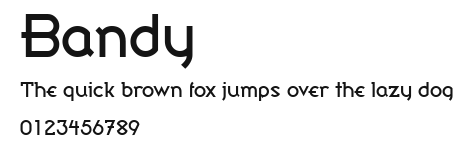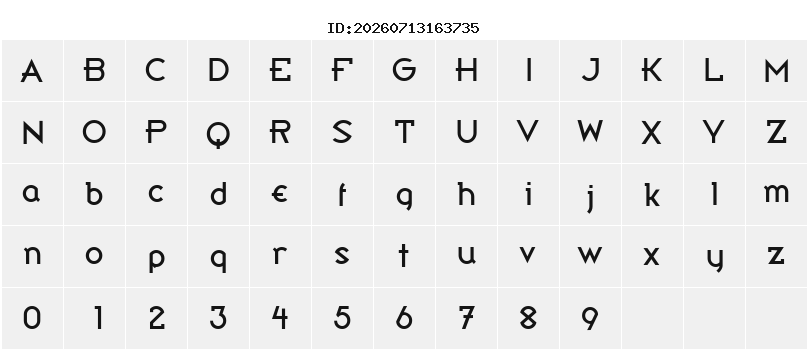
• Font Name: Bandy
• Font ID: Altsys Fontographer 3.5 Broadband Regular
• Full Font Name: Bandy Regular
• Version: Altsys Fontographer 3.5 22/02/94
• PostScript Name: BroadbandICGRegular
• Character Count: 174
About Bandy.ttf
Bandy.ttf is a modern, elegant sans-serif font designed for ultimate readability and visual harmony. Perfect for branding, headlines, web design, and print materials.